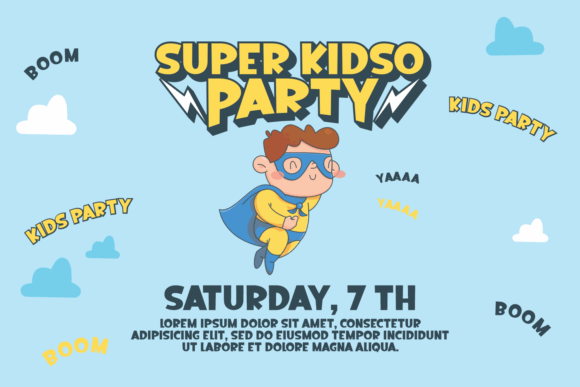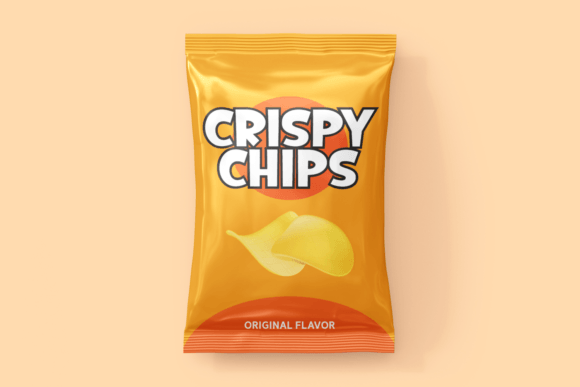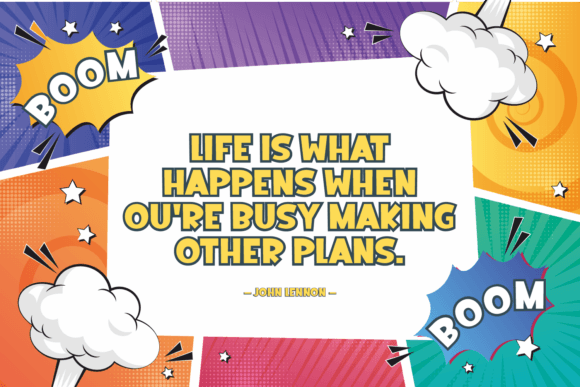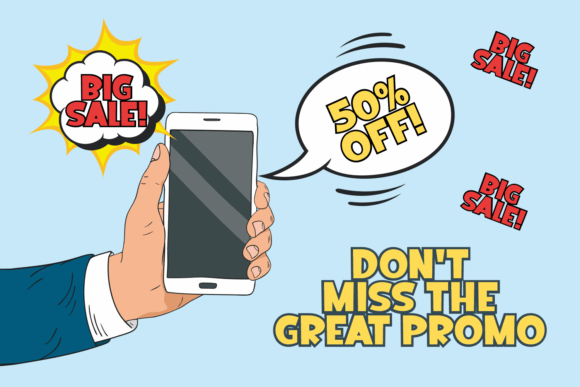
Introduction to Kids Spidy Font
Kids Spidy is a thick and versatile display font.
This remarkable typeface has everything you need to achieve a catchy look Whether youโre using it for crafting projects, advertising materials, or websites, this font has the potential to make any design creation stand out.
Key Features of Kids Spidy Font
Why Choose Kids Spidy Font?
Kids Spidy Font offers exceptional quality and versatility, making it a valuable addition to your design toolkit. Whether you’re creating for personal projects or commercial use, Kids Spidy Font delivers professional results.